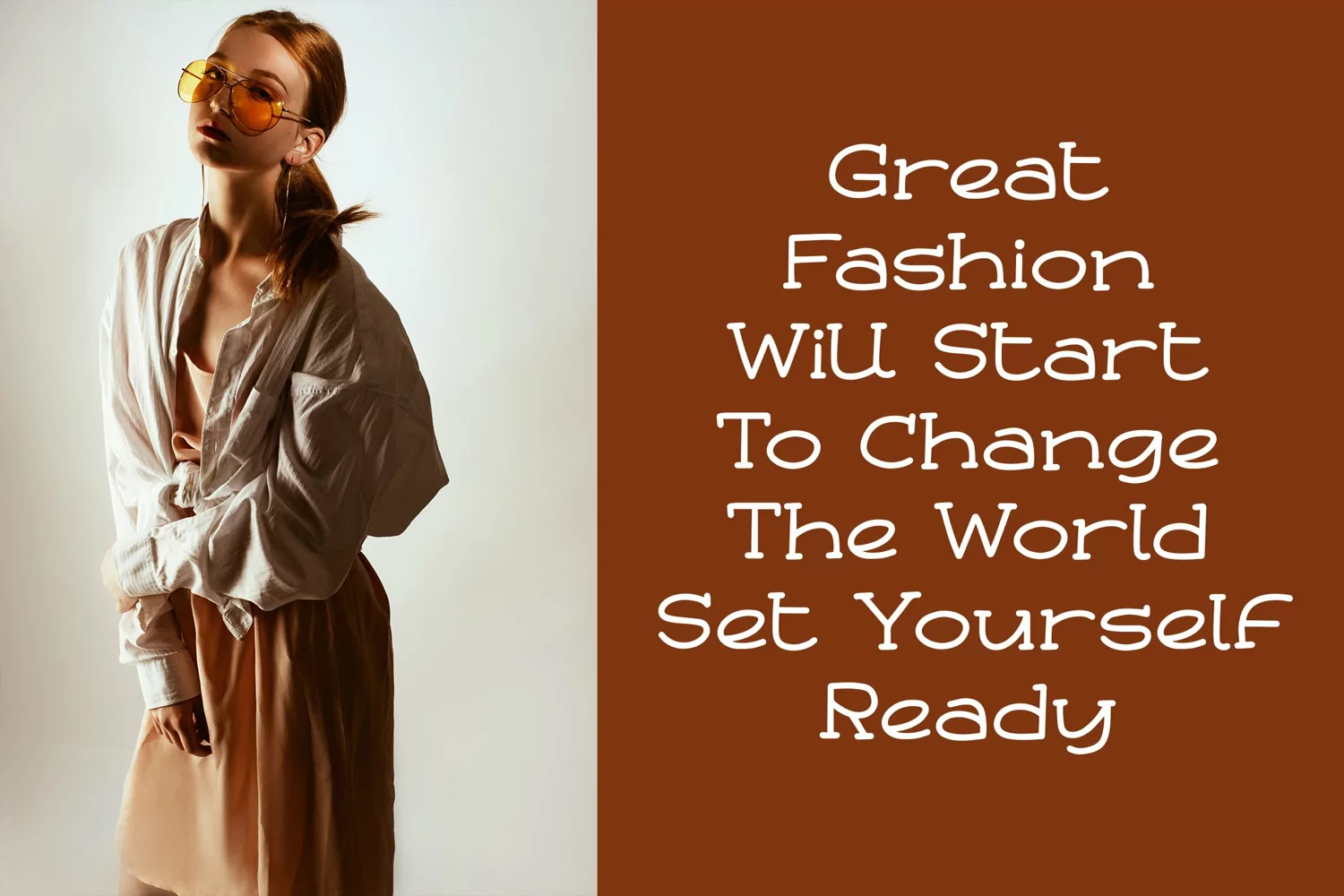
Northway - Ultra Wide Handdrawn Font that contain lowercase, uppercase, symbol, and also support multi language. There’s a lot ligatures in this font. This Font also comes with ligatures, alternates and many more. this font suitable for fashion, branding, catalog and other design what you want.
Northway